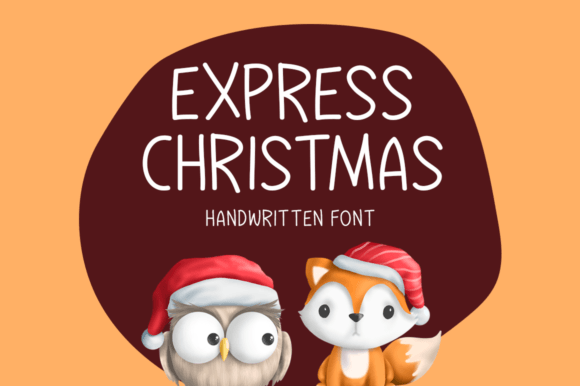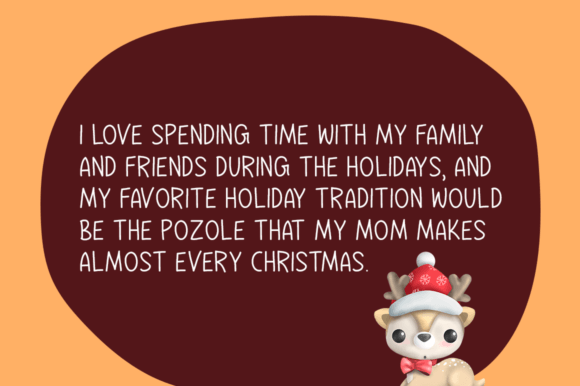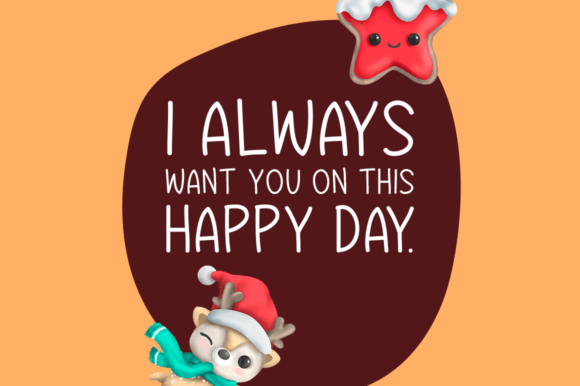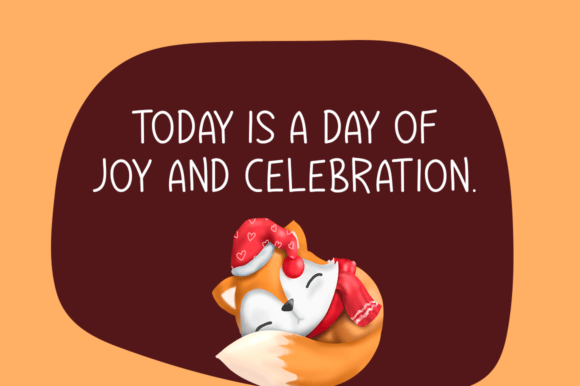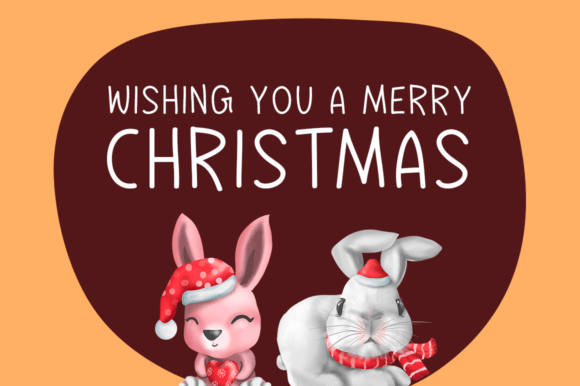
About Express Christmas Font
Express Christmas is a simple handwritten font. It will add an incredibly joyful touch to your designs. Add this beautiful display font to each of your creative ideas and notice how it makes them stand out!